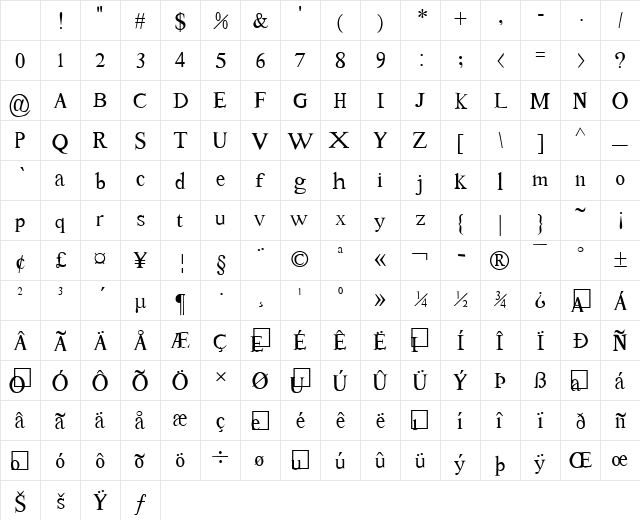
Tom's New Roman Tom
Design Context for Tom's New Roman
Tom's New Roman is a composed and adaptable typeface that performs quietly and consistently across a wide range of design contexts.
Pro Tip: Use Tom's New Roman in both headline and body roles to test its range before committing to a single application.